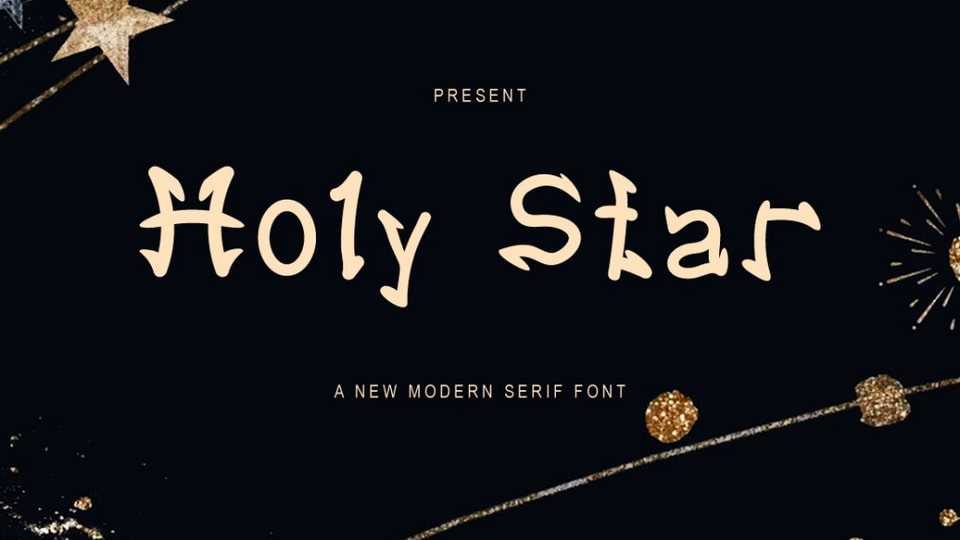
Download Holy Star font, a cute and fun hand-drawn typeface that twinkles with charm and whimsy. Holy Star font is adorned with star-like accents and playful strokes, creating a typographic experience that feels magical and enchanting.
Designer: Valiant Project